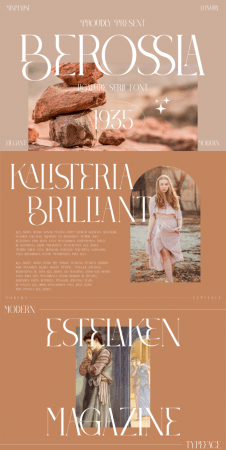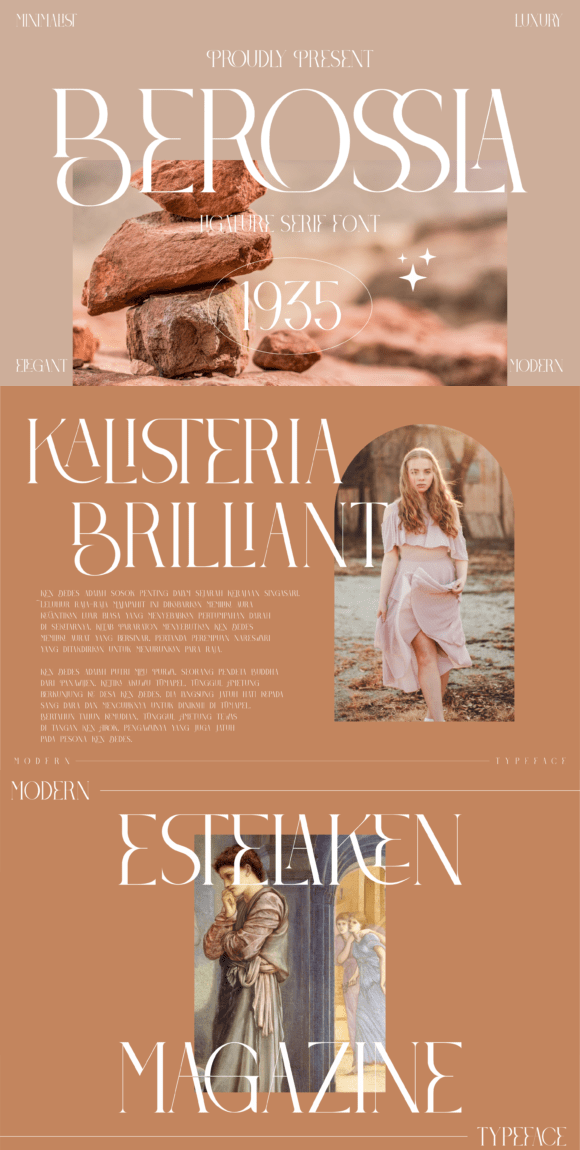
Berossla is a thin lettered and elegant serif font. It will add a luxury spark to any design project that you wish to create! This font is PUA encoded which means you can access all of the amazing glyphs and ligatures with ease!